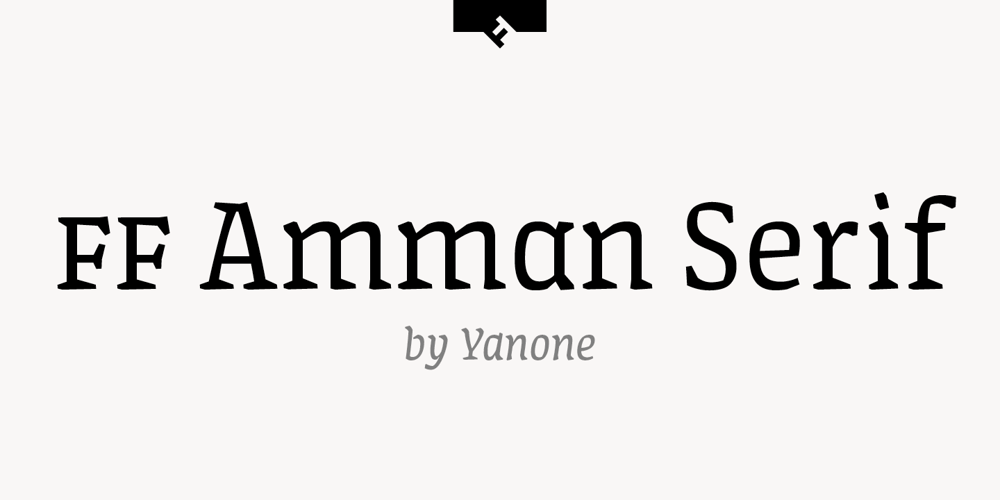
FF Amman Serif Font Family was designed by Yanone and published by FontFont. FF Amman Serif contains 10 styles and family package options. German type designer Yanone created this serif FontFont in 2010. The family has 8 weights, ranging from Regular to Extra Bold (including italics) and is ideally suited for advertising and packaging, editorial and publishing as well as logo, branding and creative industries. FF Amman Serif provides advanced typographical support with features such as ligatures, small capitals, alternate characters, case-sensitive forms, fractions, and super- and subscript characters. It comes with a complete range of figure set options – oldstyle and lining figures, each in tabular and proportional widths. As well as Latin-based languages, the typeface family also supports the Arabic writing system. This FontFont is a member of the FF Amman super family, which also includes FF Amman Sans.